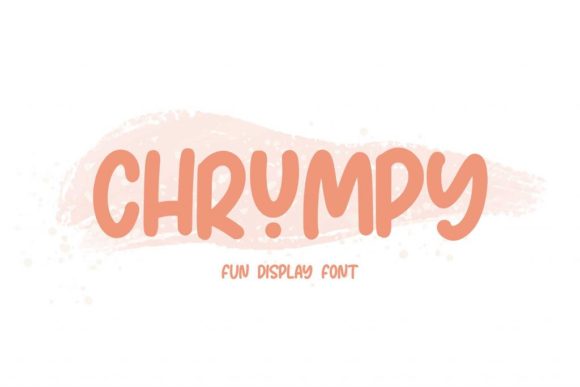
Enter the enchanting world of Chrumpy, a display font brimming with cheerful energy and playful charm. Inspired by the magic of laughter and the vibrancy of childhood, Chrumpy captivates hearts with its whimsical and lighthearted appeal. Whether you're a creative professional seeking to add a touch of whimsy to your designs or a joyful soul looking to spread cheer through your words, Chrumpy is the perfect companion to ignite your imagination.
With its meticulously crafted characters, Chrumpy dances across your screen, adding a touch of whimsy and joy to every word. Each letter is a masterpiece of creativity, bursting with personality and ready to infuse your projects with a sense of lightheartedness. Unleash your inner child and let Chrumpy's playful spirit guide you as you create designs that radiate happiness and charm.
Whether you're designing wedding invitations, children's books, playful posters, or any creation that calls for a touch of joy, Chrumpy is your trusty sidekick. Its versatility knows no bounds, effortlessly adapting to a myriad of styles and themes. Let Chrumpy be your muse as you create designs that evoke laughter, inspire smiles, and capture the essence of childhood wonder.
Immerse yourself in the delightful world of Chrumpy and let its playful energy ignite your creativity. Transform your designs into captivating works of art, filled with joy and boundless imagination. With Chrumpy by your side, you'll craft creations that touch hearts, spread happiness, and leave a lasting impression on all who encounter them.